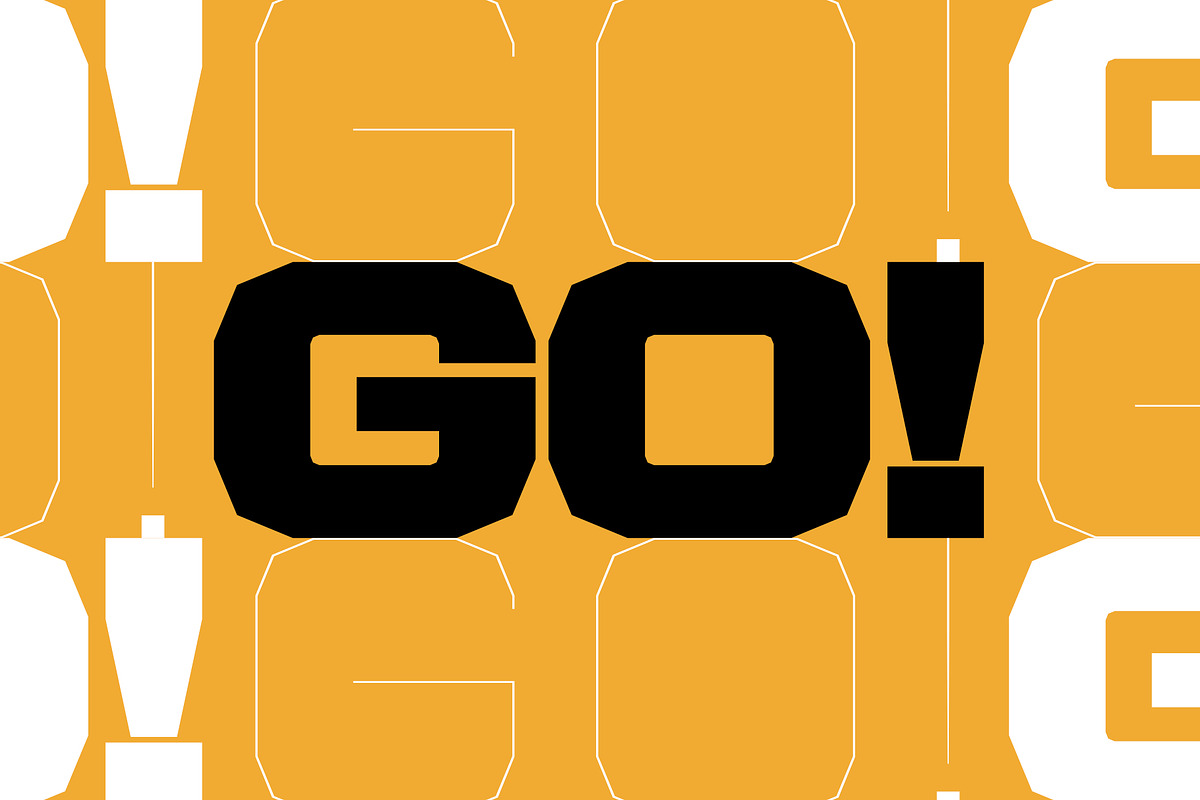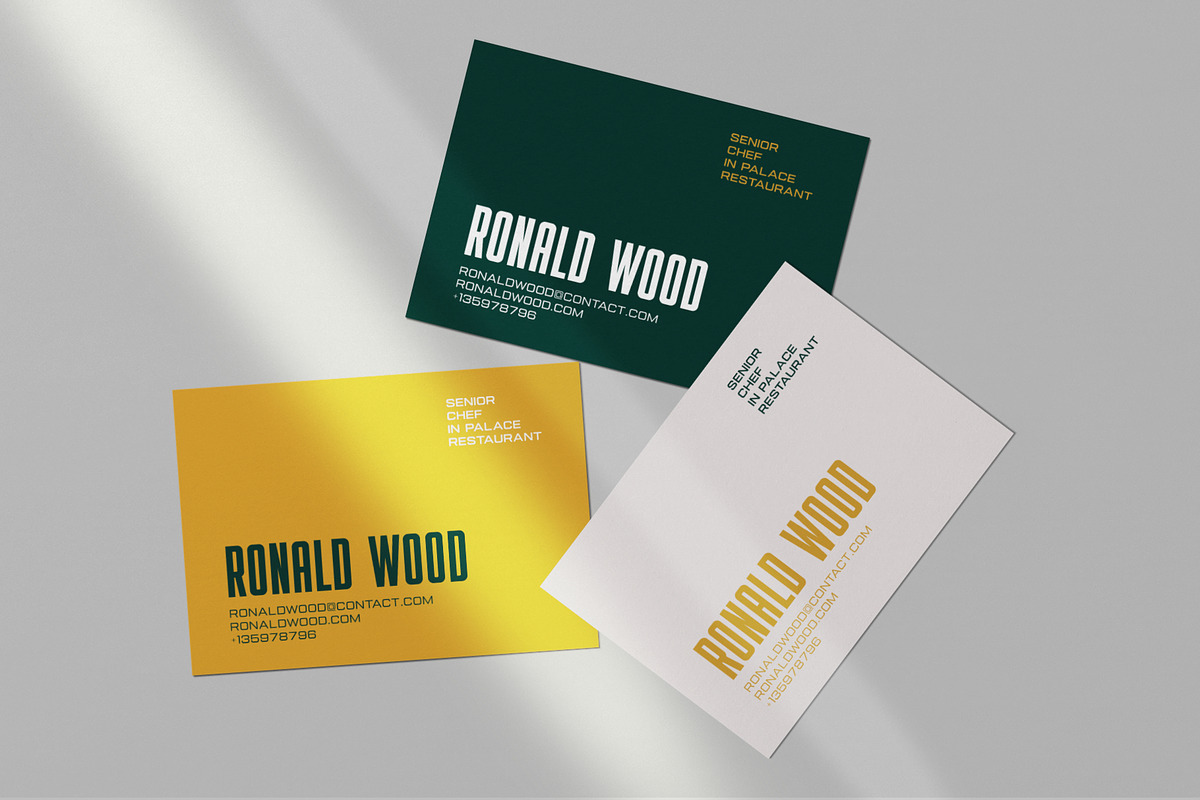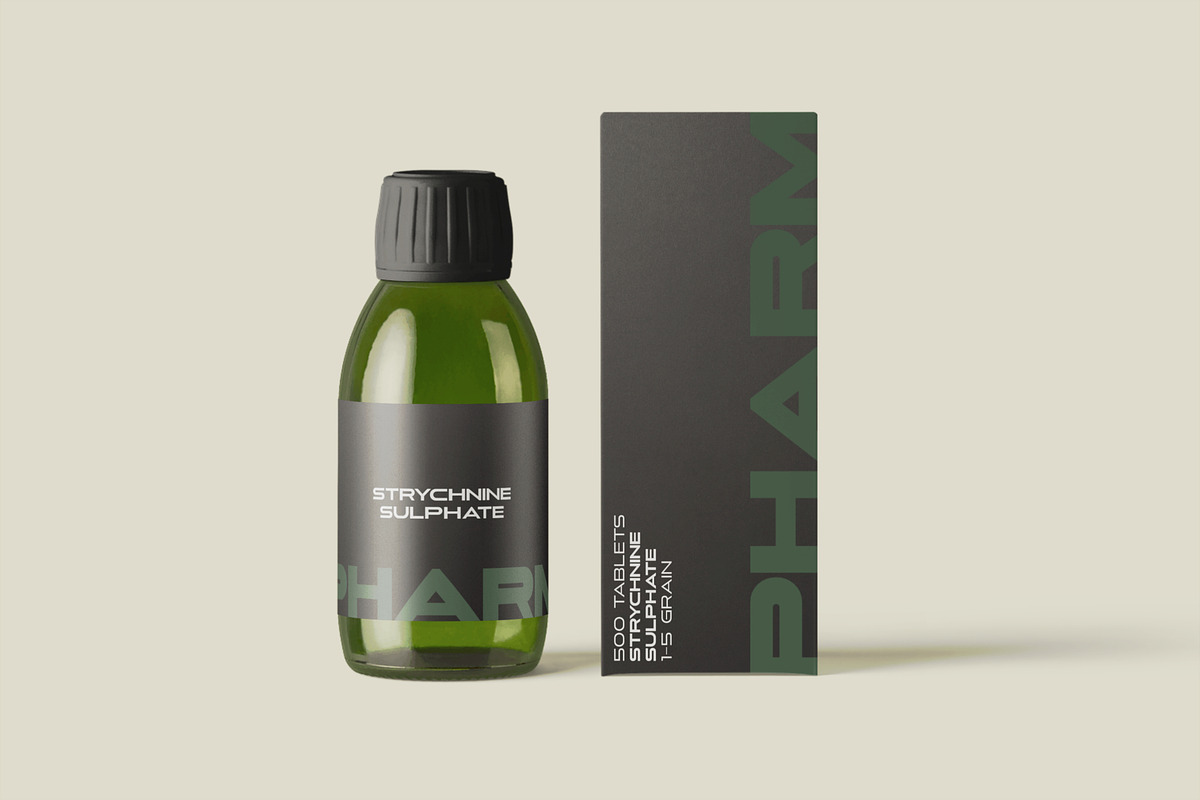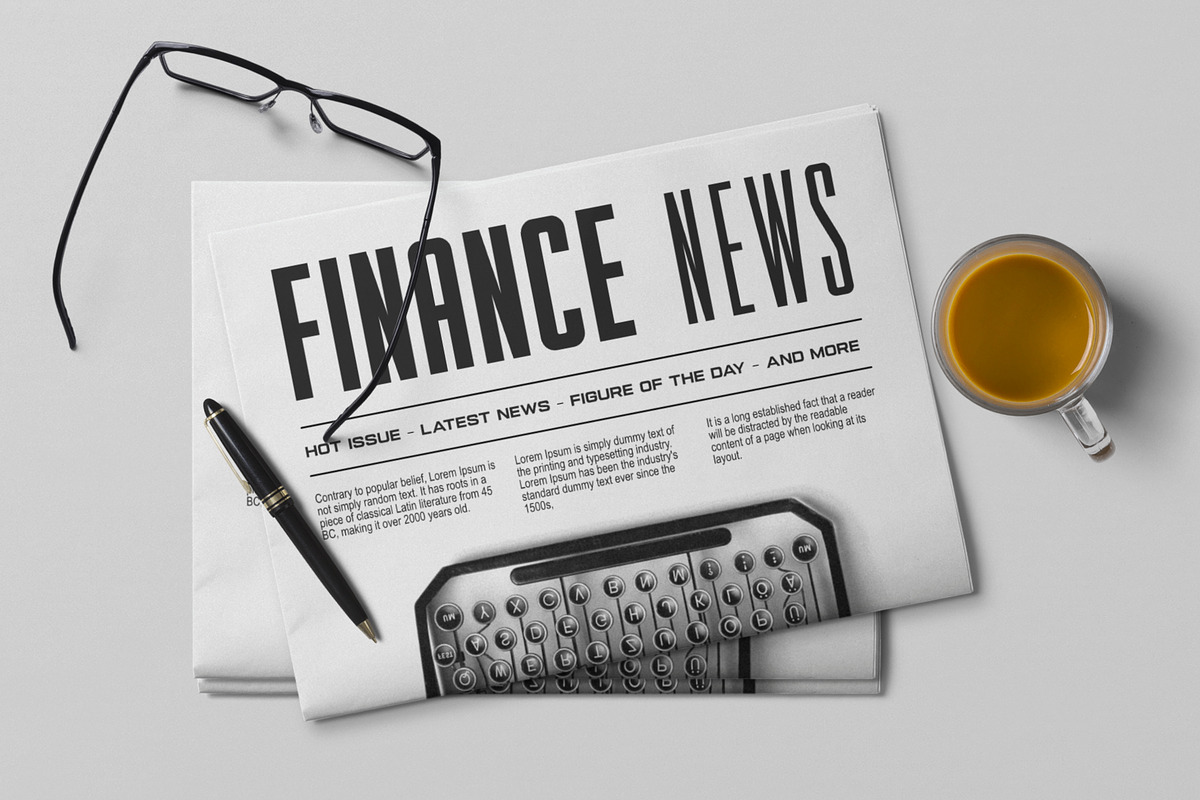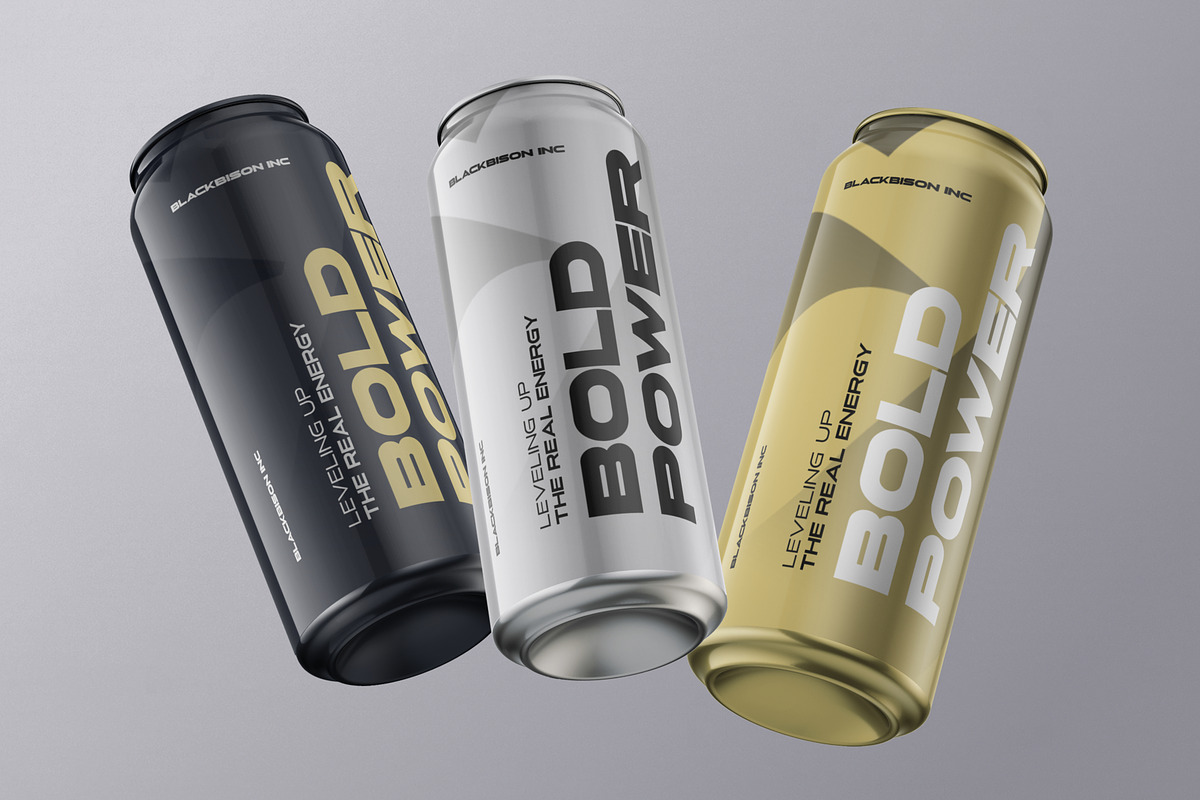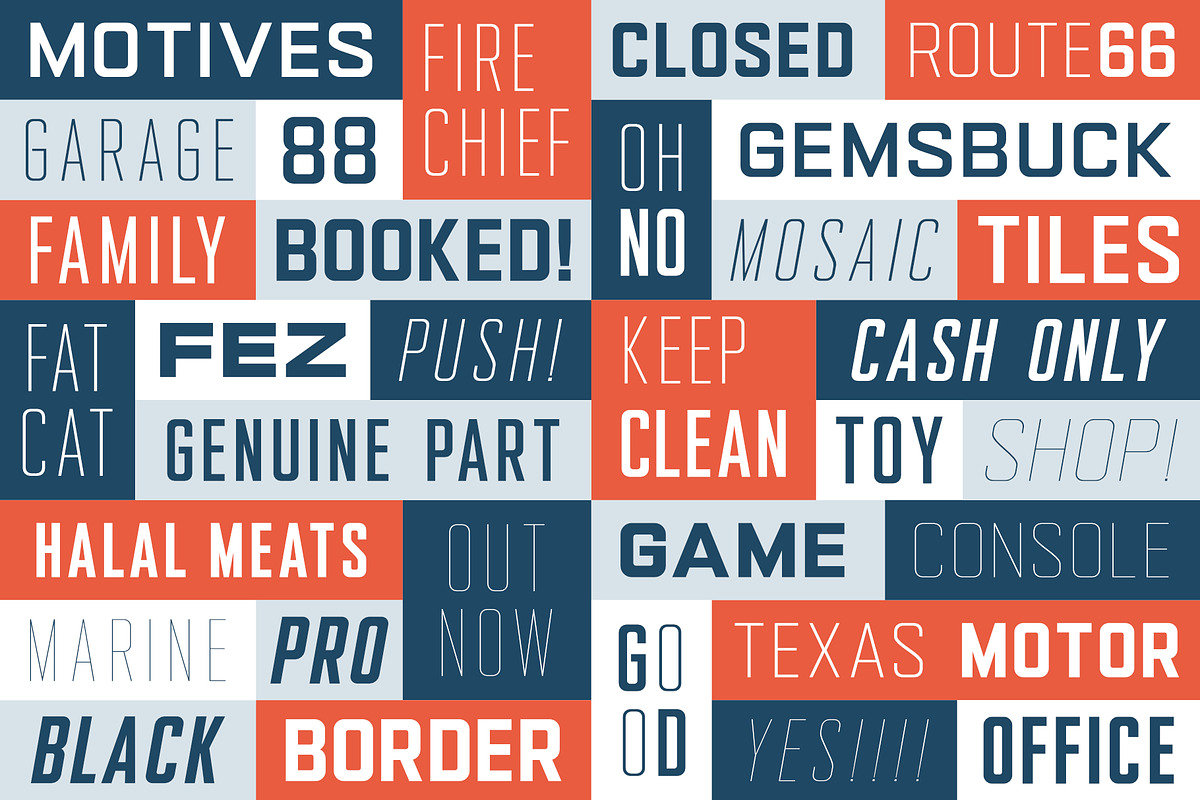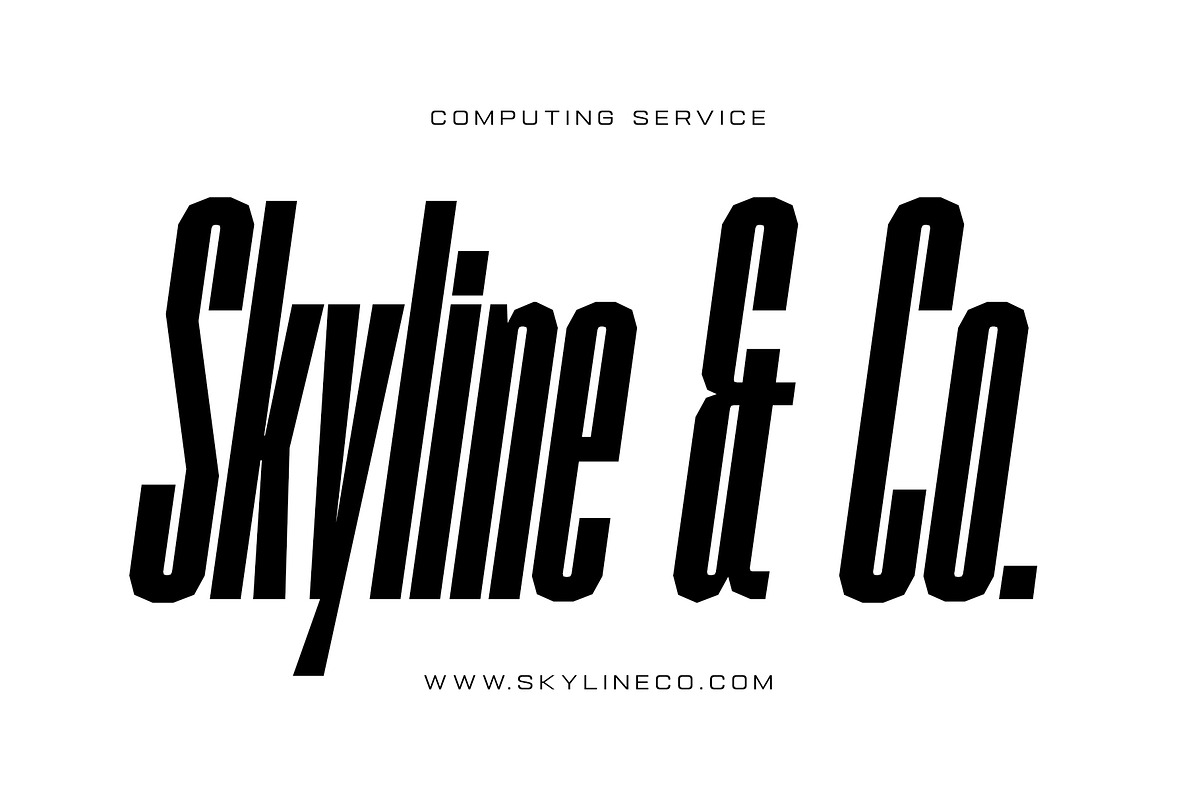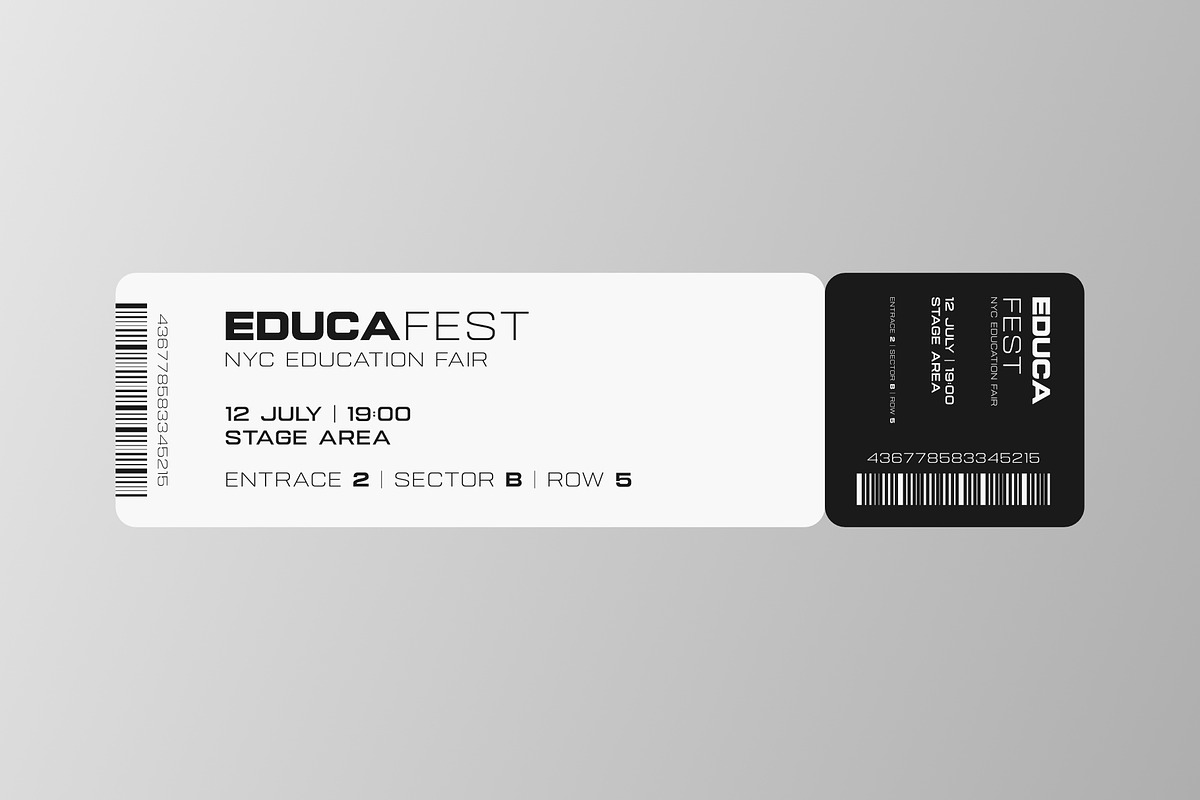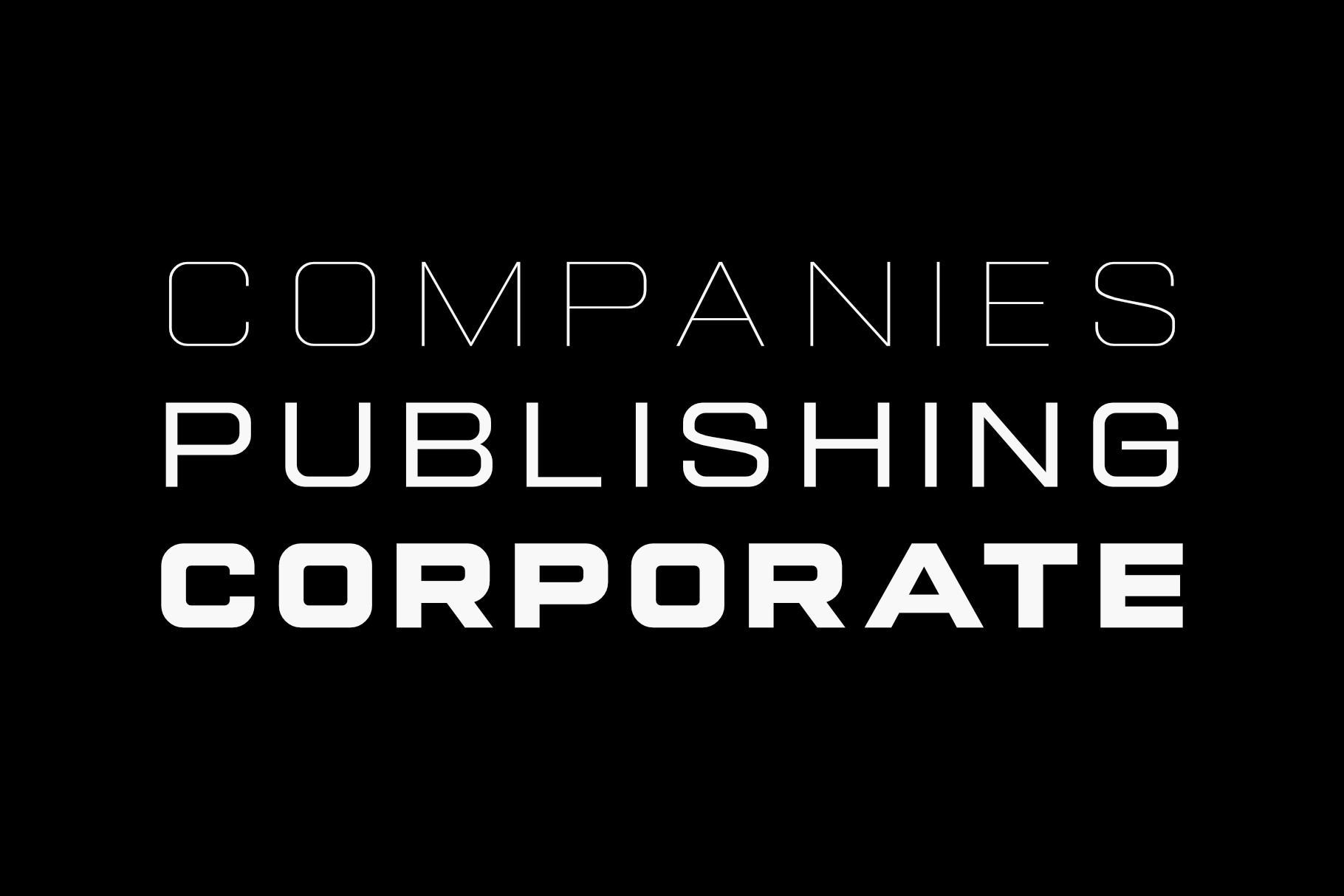
The Best Logo Font Collection
Introducing "The Best Logo Font Collection" – where creativity meets versatility. Elevate your logo designs to new heights with this carefully curated bundle of exquisite fonts. Handpicked for their unique styles and timeless appeal, these fonts are meticulously crafted to add a touch of sophistication to your logos.
Whether you're crafting a brand identity for a startup, revamping an existing logo, or working on a client project, this collection offers a diverse range of fonts to suit every design aesthetic. From elegant scripts that exude grace to bold sans-serifs that command attention, each font in this bundle is a masterpiece in its own right.
With "The Best Logo Font Collection," you gain access to a world of typographic possibilities. Create logos that leave a lasting impression, perfectly capturing the essence of any brand. Crafted by typography experts, these fonts are not just letters; they are symbols of creativity, professionalism, and innovation.
Dive into a world where letters come to life, telling compelling stories and shaping memorable brands. Elevate your design game and make a statement with your logos. "The Best Logo Font Collection" is your ultimate toolkit for logo design excellence.
- Versatile Styles: From classic to modern, find fonts that suit various logo design concepts.
- High-Quality Fonts: Each font is crafted with precision, ensuring top-notch quality for your projects.
- Easy to Use: User-friendly fonts that work seamlessly with popular design software.
- Endless Creativity: Explore endless logo design possibilities and let your imagination run wild.
Don't just create logos; craft experiences. Unleash your creativity with "The Best Logo Font Collection" and transform ordinary designs into extraordinary brand identities.